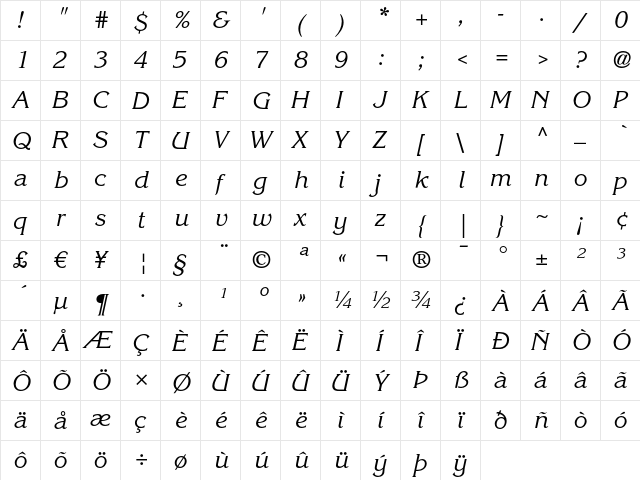
ITC Korinna LT Regular Kursiv
Design Context for ITC Korinna LT Typeface
ITC Korinna LT offers clean, dependable letterforms without strong stylistic allegiance, making it a practical choice for designers who need flexibility. The dynamic lean of this cut emphasises speed and emphasis in any layout. Its slender proportions lend an understated elegance to any composition.
Pro Tip: Use ITC Korinna LT for emphasis, pull quotes, and subheadings where its slanted energy can add rhythm to the layout.